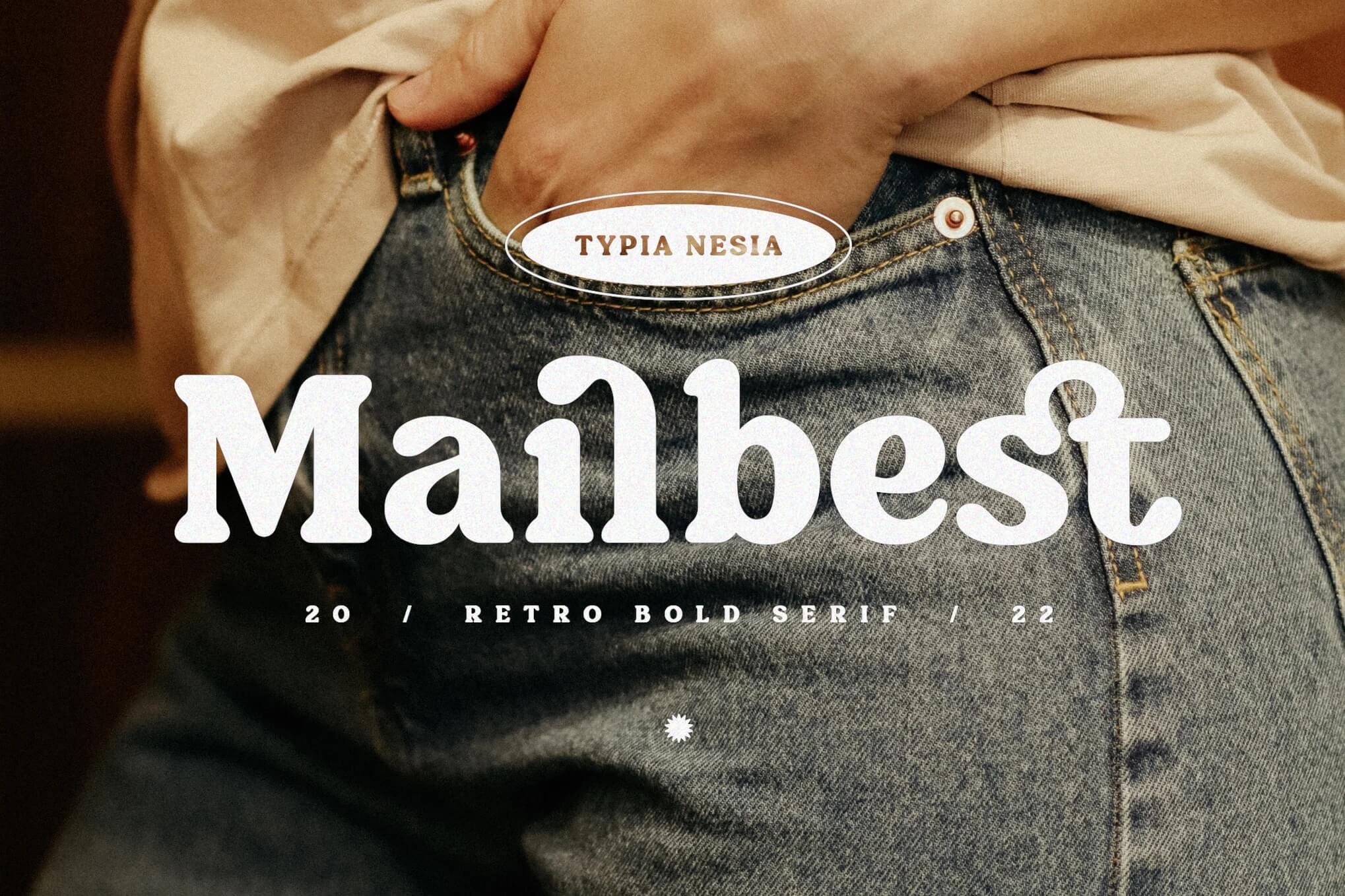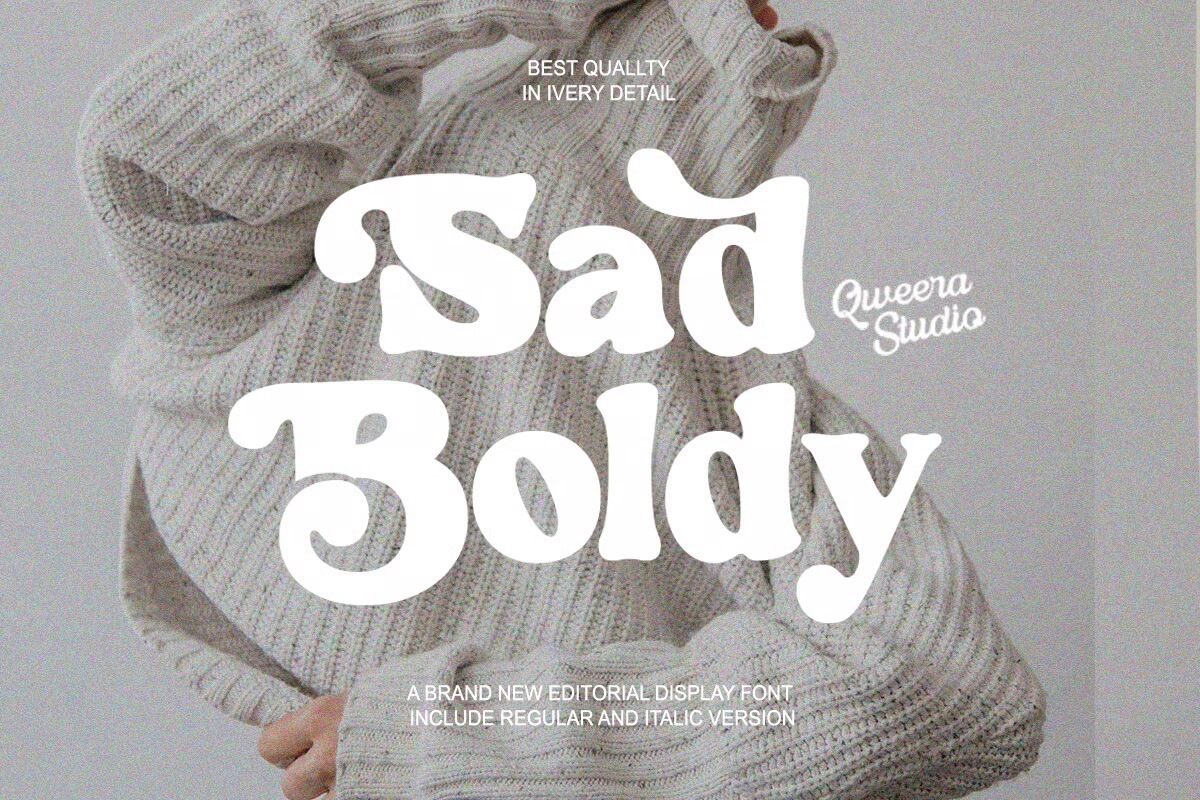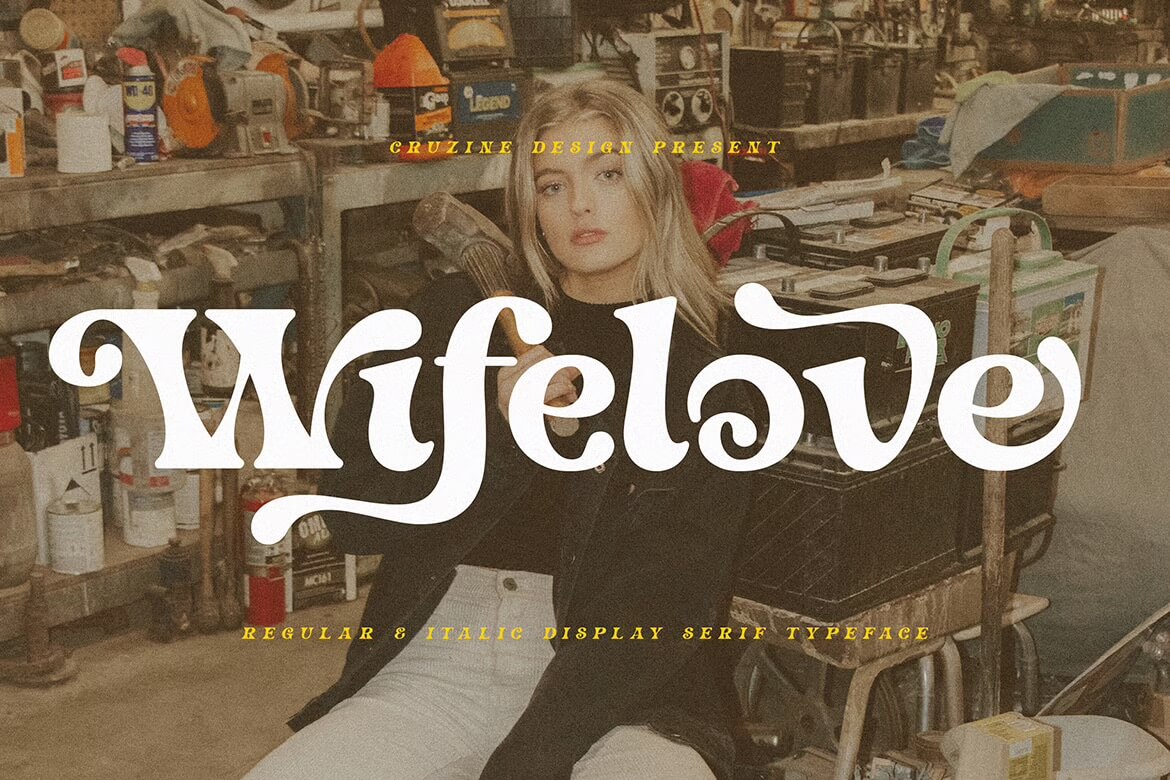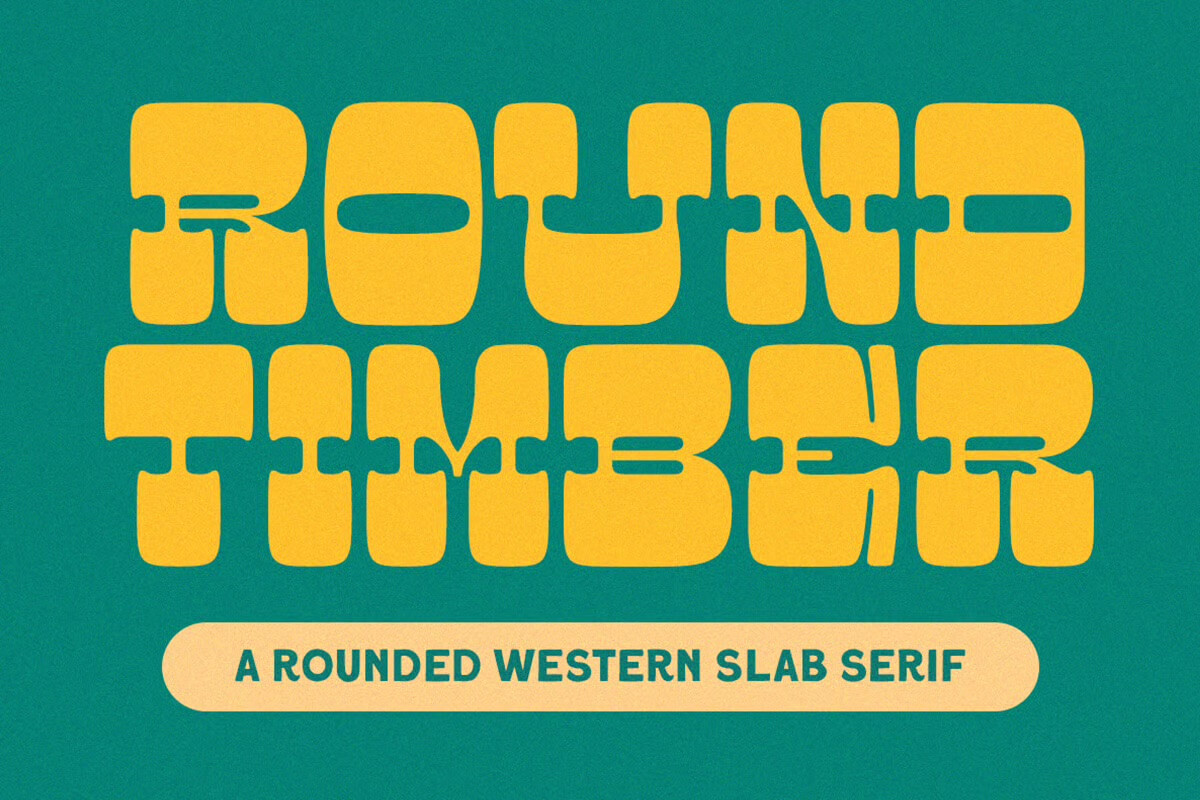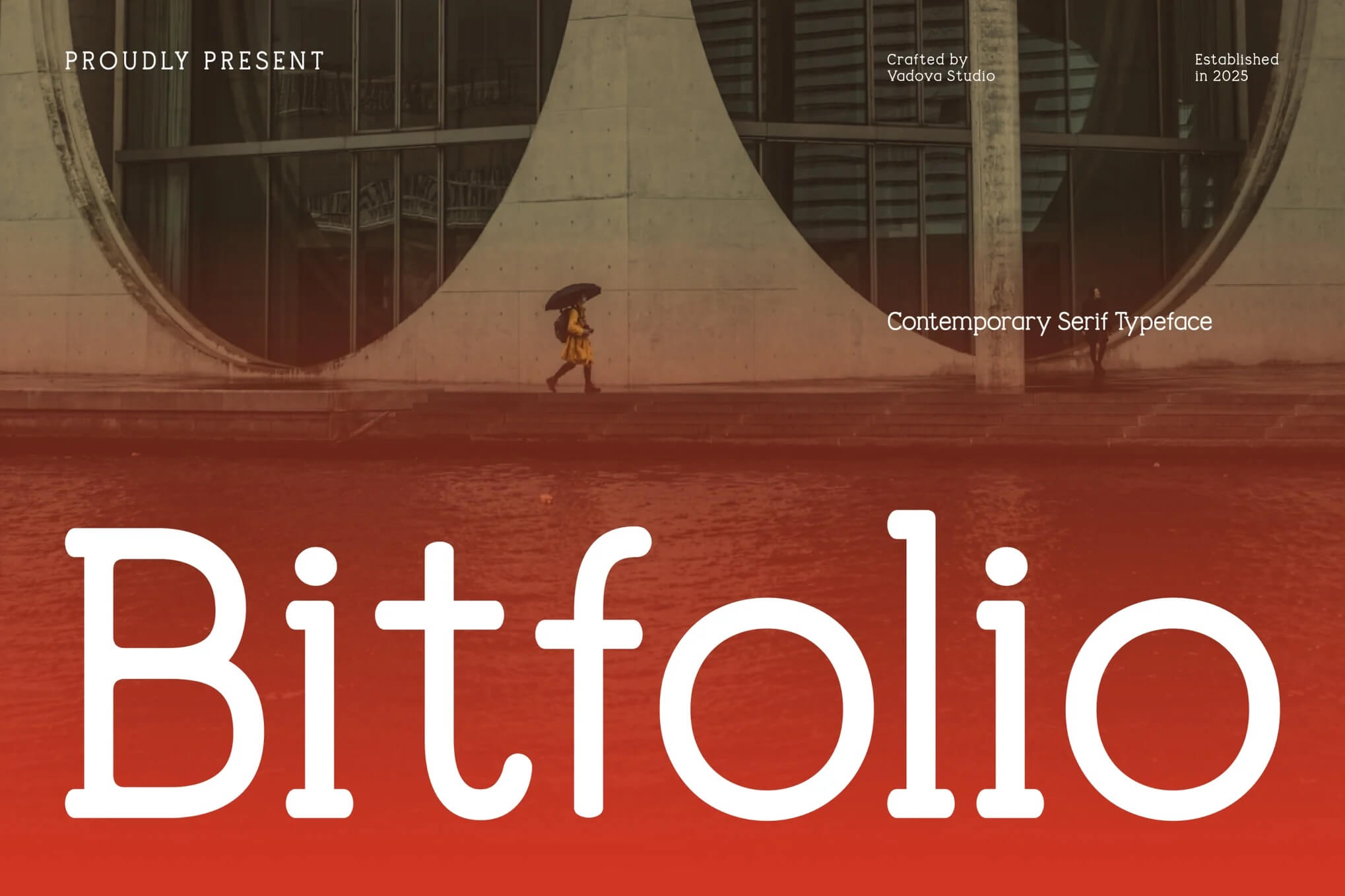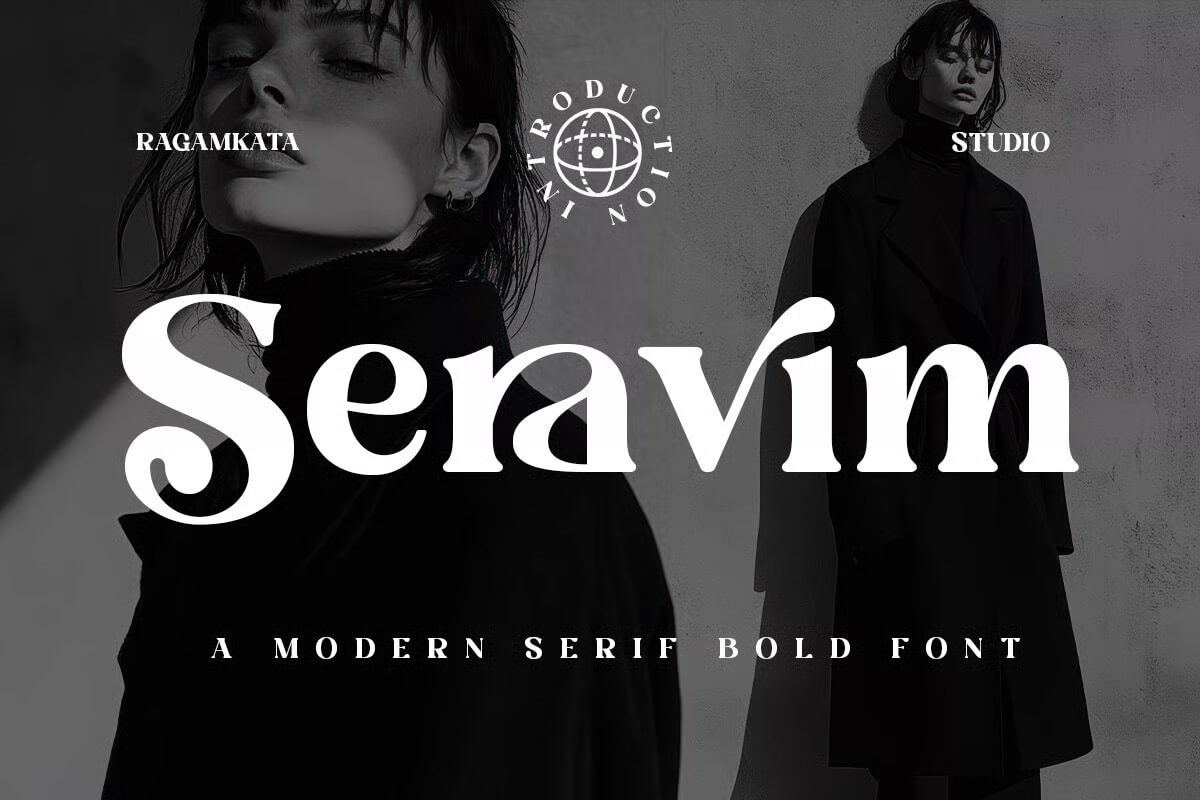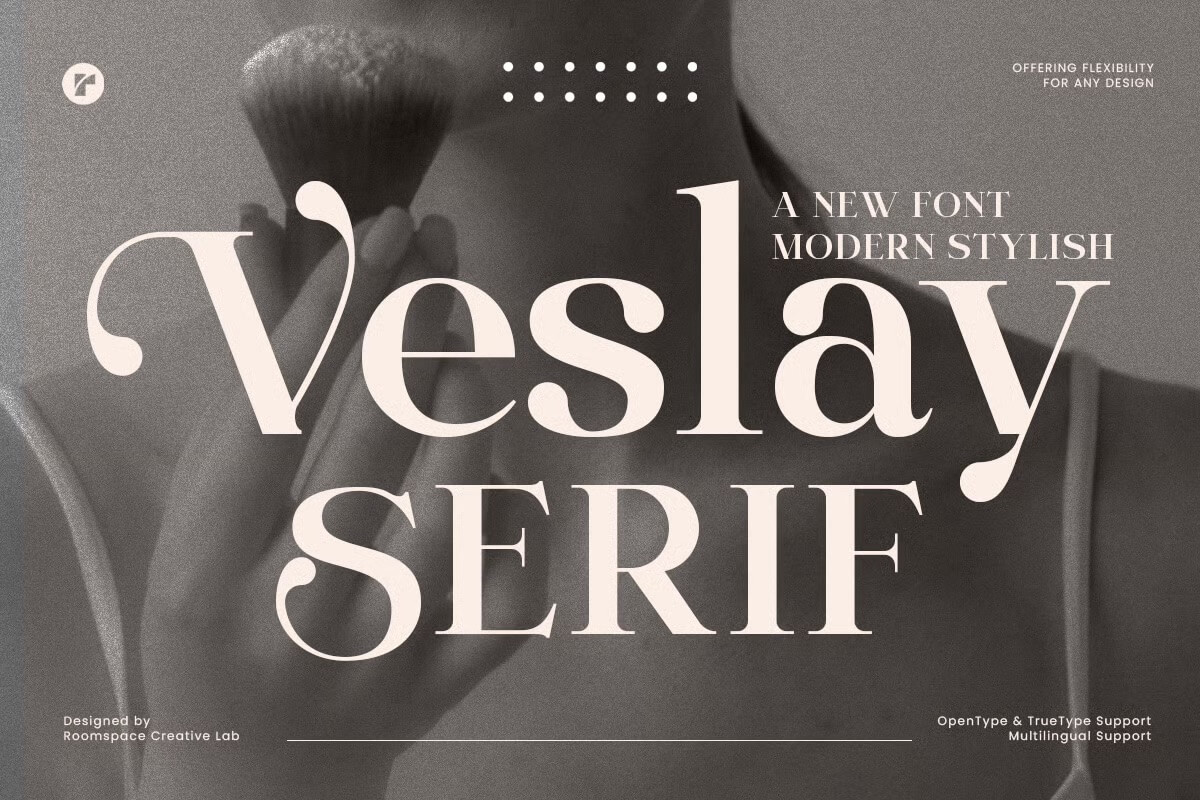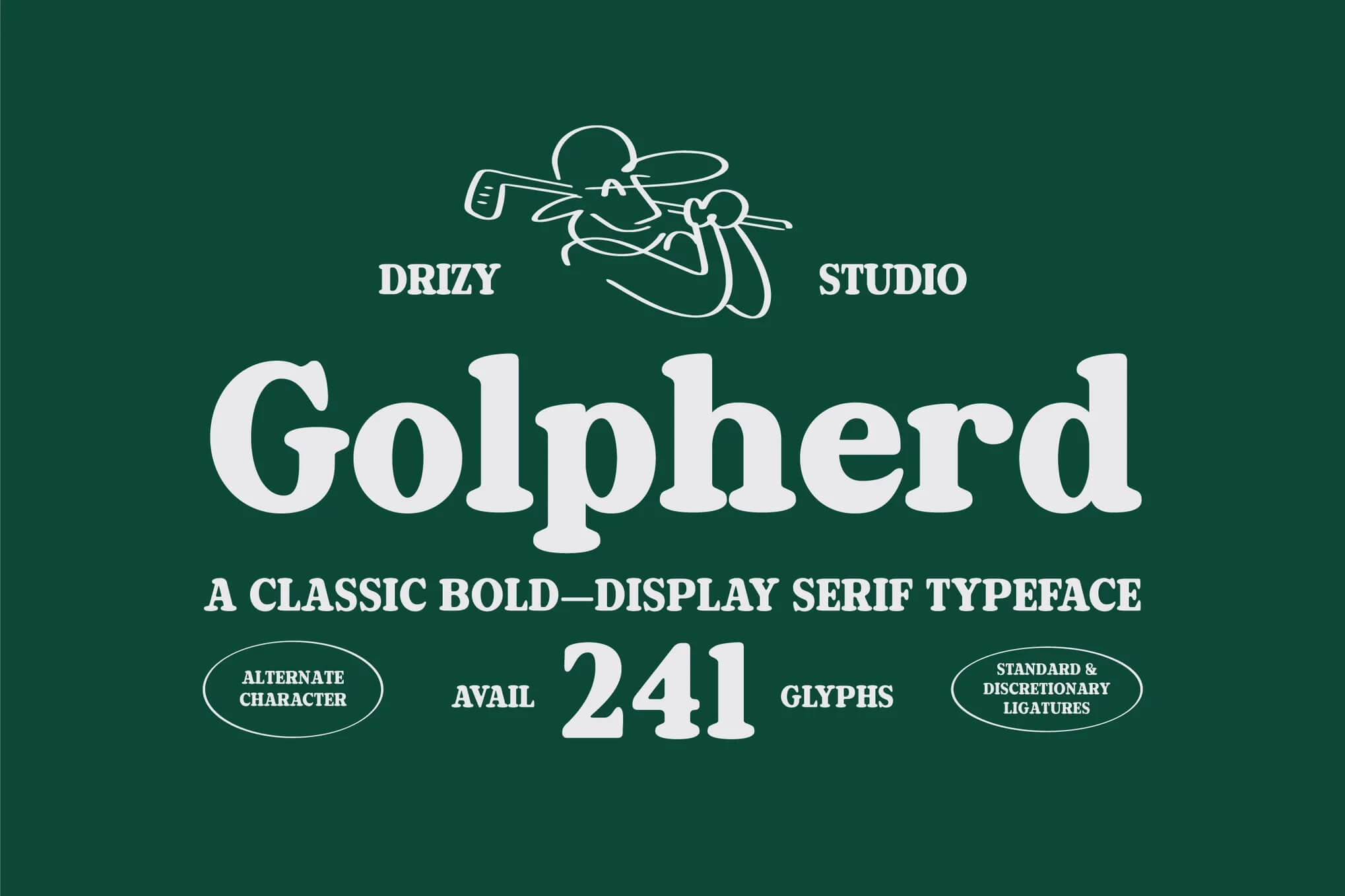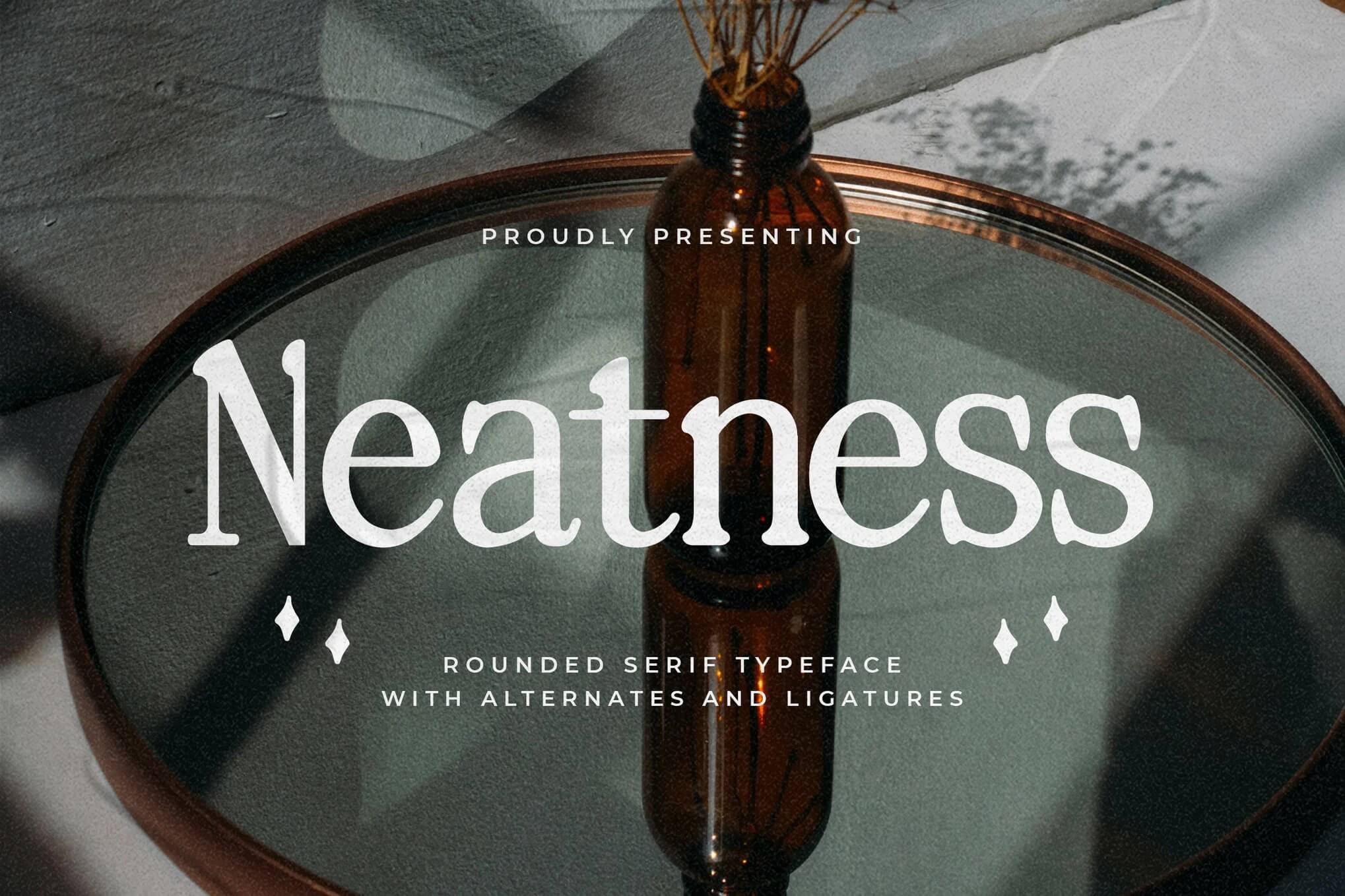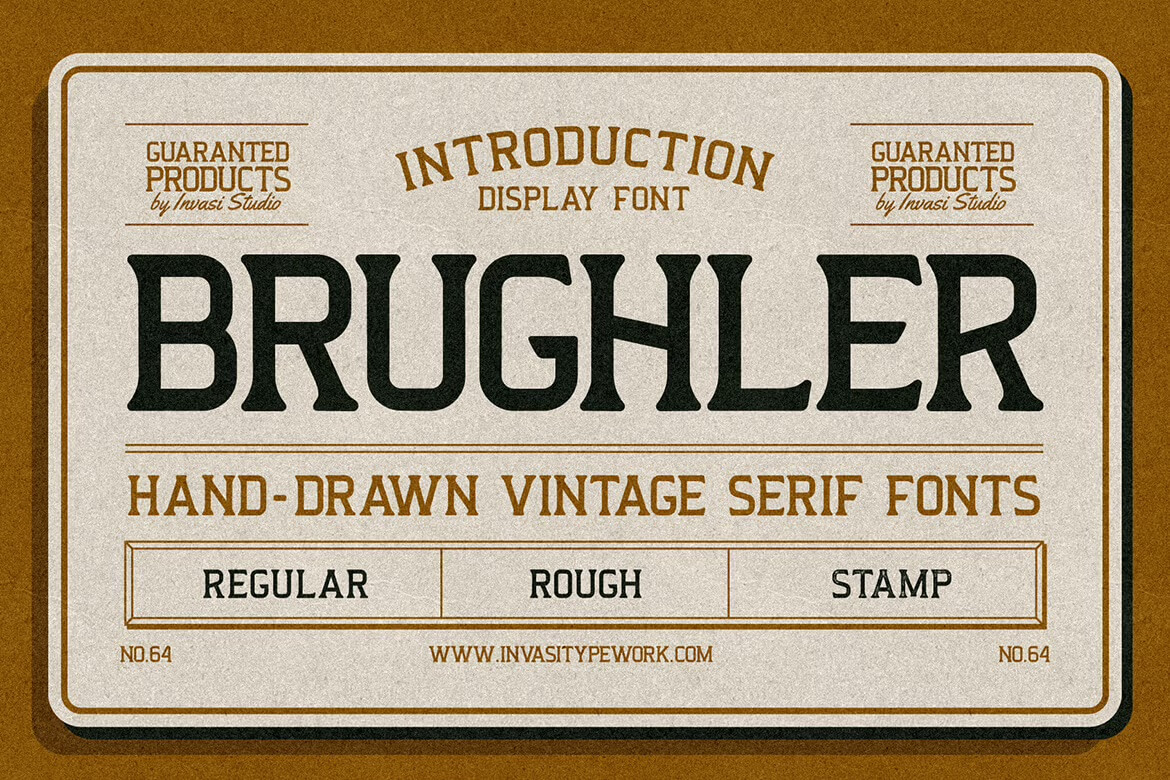
15+ Fonts with Rounded Serifs
If you fell in love with a round sans serif font modern, soft and little retro at the same time, then you are not alone. The trend in round serifs has arrived.
Rounded serif is all the rage. This guide will help you to find the best rounded serif fonts, tell you how to use them and where to get a bit of that style-savvy for your brand or design projects where everything looks polished and deliberate.
What makes a rounded serif font feel so warm and friendly as a typeface?
The rounded serif font has a unique warmth that is immediately apparent the moment you set eyes on it. Blending the mellowness of serifs with the rounded nature of curves.
When this solid typeface gets pulled up into print, it immediately takes on a sort of friendly warmth that you can appreciate before even reading any of its letters.
The rounded edges take off the sharpness usually associated with serif fonts and replace it with something a little more welcoming. You even get some age-old charm this way without looking old hat.
Designers love this font because rounded serif edges smooths out each letterās silhouette, so your project has a refined yet mellow feel.
When you are trying to create typography that doesnāt feel too corporate, this is just right. It is sleek and adaptive, a perfect fit for both brand image and all kinds of creativity.
Mailbest
Mailbest has that perfect mix of retro charm and bold personality. It feels playful yet confident, with chunky curves that give off a nostalgic summer vibe. I can totally see it on vintage posters, logos, or anything that needs a touch of classic flair.
Sad Boldly
SadBoldy has that perfect mix of vintage charm and bold personality. It feels playful yet confident, with chunky curves that instantly grab attention. I love how it brings a nostalgic vibe while still looking fresh and modern for logos, posters, or packaging.
Kalitha
Kalitha has that perfect mix of classic charm and modern polish. Its rounded serifs feel soft yet confident, making it ideal for elegant branding or editorial designs. Itās the kind of font that instantly adds warmth and sophistication without trying too hard.
Winky Milky
Winky Milky has that perfect mix of charm and sophistication. It feels soft and stylish, with smooth curves that give any design a polished look. I love how it balances modern elegance with a warm, classic vibe that instantly catches attention.
Wifelove ā Groovy Retro Serif
Wifelove feels like a fun throwback with a modern twist. Itās groovy, bold, and full of personality, perfect for projects that need a splash of retro charm. The curves and playful details make every word look effortlessly stylish and creative.
Round Timber
Round Timber has that perfect mix of bold and friendly energy. It feels vintage with a western vibe, yet modern and smooth. The chunky letters and rounded edges make it great for logos, posters, or anything that needs personality and charm.
Bitfolio Contemporary Serif
Bitfolio feels modern yet timeless, with a clean serif style thatās both confident and approachable. It has this subtle elegance that works beautifully for branding or editorial use, giving any design a polished, thoughtful vibe without trying too hard.
Seravim
Seravim has that perfect mix of vintage charm and modern confidence. It feels bold yet elegant, like something youād see on a high-end magazine cover. The curves are playful but refined, making it great for branding, fashion, or any stylish creative project.
Vintage Rounded Elegant ā Veslay Luxury Font
Vesley Serif blends retro charm with modern minimalism to create a chic, readable font that feels both timeless and fresh. Itās perfect for logos, editorial layouts, and luxe branding, offering elegant alternates and swashy tails that give projects personality without fuss.
Golpherd ā Classic Bold Display Font
Golpherd is a bold, classic display font that feels polished and relaxed, like a sunny day at the golf club. It pairs strong, clean lines with subtle vintage charm, making it perfect for elegant branding, retro posters, and stylish lifestyle projects.
Evereast ā Western Rounded
Evereast Western Rounded feels like a friendly, vintage-inspired display type with soft rounded edges and strong serifs. It works great for logos, posters, and signage, offering bold presence and subtle personality while supporting multilingual characters and useful OpenType features.
Neatness
Neatness is a friendly, rounded serif that brings warmth and polish to any project. It feels modern but familiar, with smooth curves and clear letterforms that work beautifully for headlines, logos, and branding. Versatile, readable, and subtly charming for many uses.
Brughler ā Vintage Serif Display
Brughler brings a warm vintage vibe with bold serif letterforms that feel handcrafted and timeless. It offers three textured styles: Regular, Rough, and Stamp, so you can achieve authentic printed looks for packaging, posters, and branding without extra effects.
Living on the web page and brand sign personally to examine effect. How well do the typeface shapes and image layout spacing on paper work together?